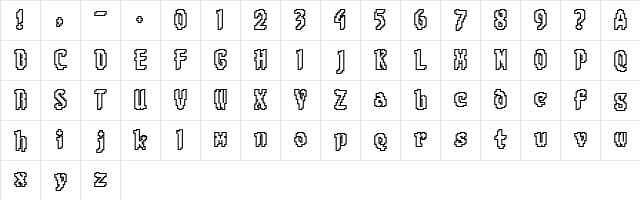
8-bit Limit O (BRK) Regular Free Font
8-bit Limit O (BRK) Regular
Design Context for 8-bit Limit O (BRK)
8-bit Limit O (BRK) is a composed and adaptable typeface that performs quietly and consistently across a wide range of design contexts.
Pro Tip: Use 8-bit Limit O (BRK) in both headline and body roles to test its range before committing to a single application.